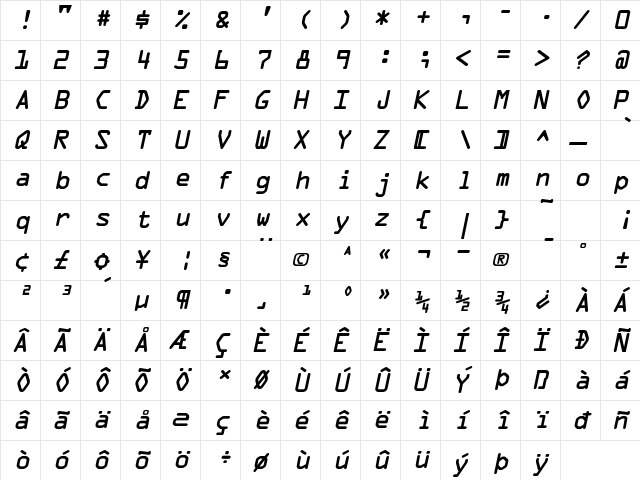
MicroscanA BoldOblique Font Preview
MicroscanA BoldOblique
Design Context for MicroscanA Typeface
MicroscanA is a composed and adaptable typeface that performs quietly and consistently across a wide range of design contexts. The dynamic lean of this cut emphasises speed and emphasis in any layout. Its bold stroke weight gives it real presence on the page.